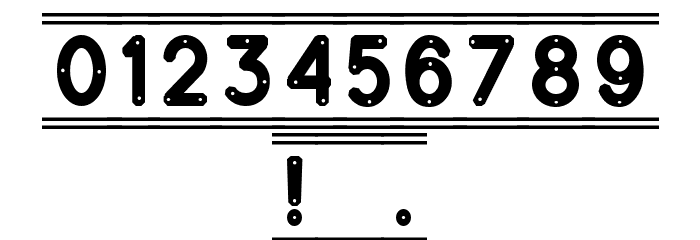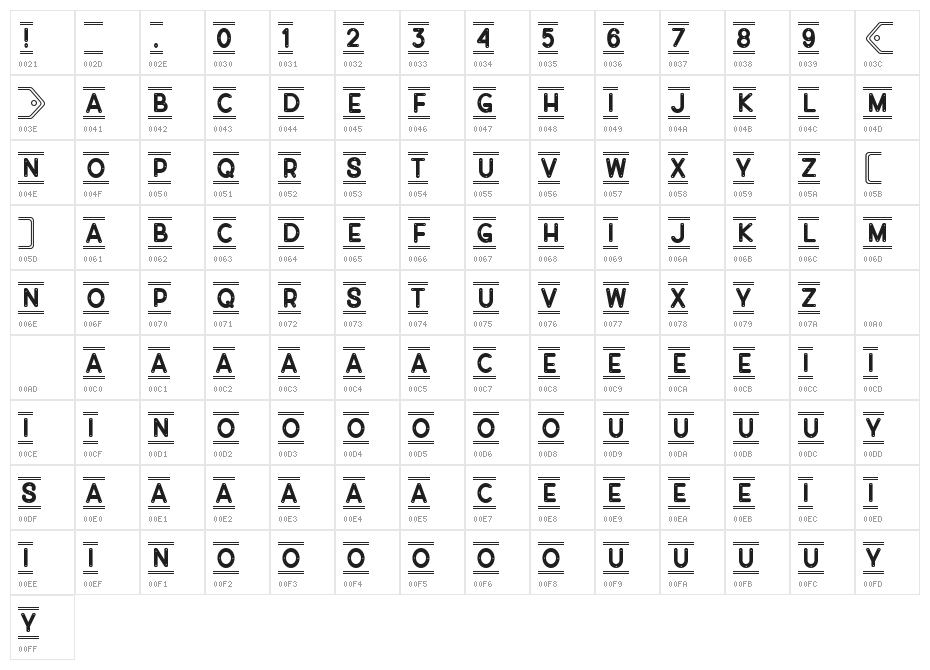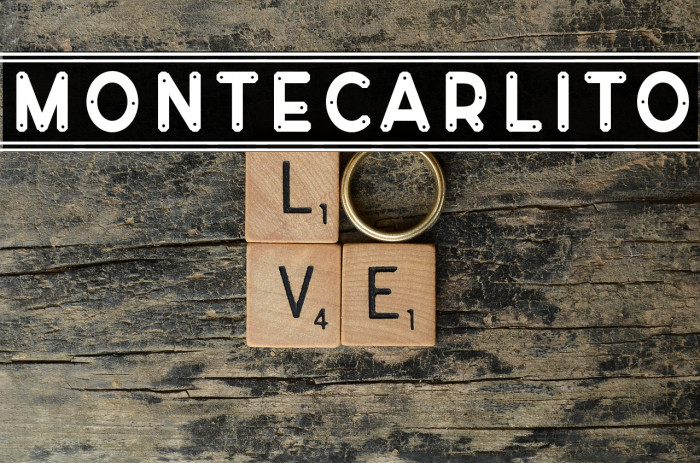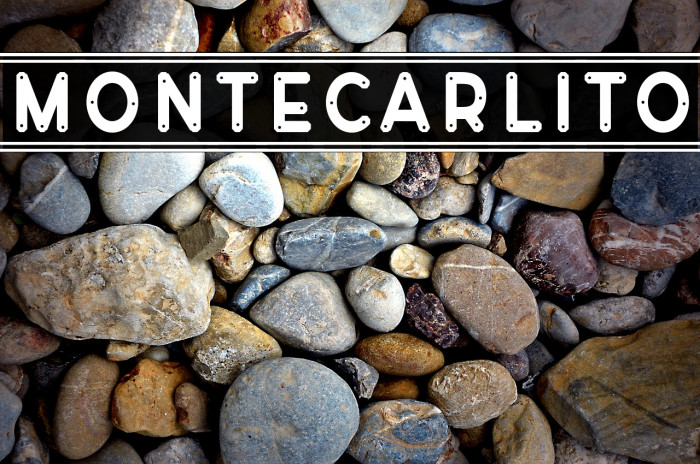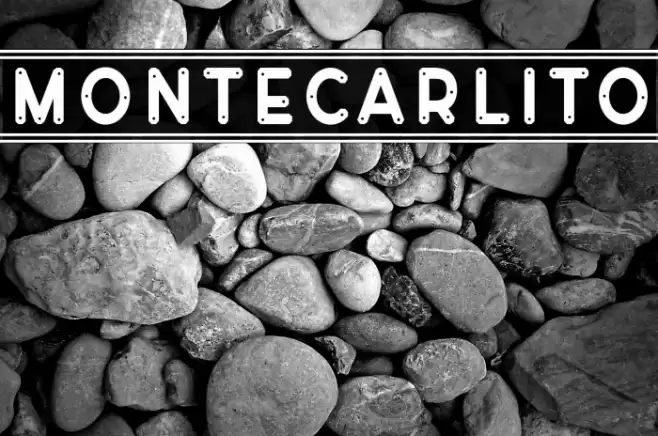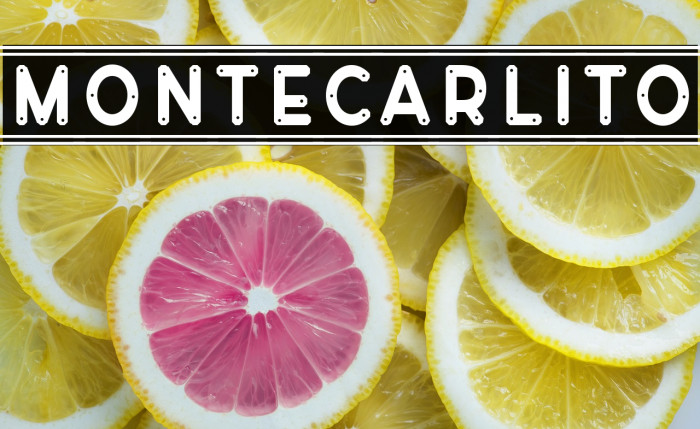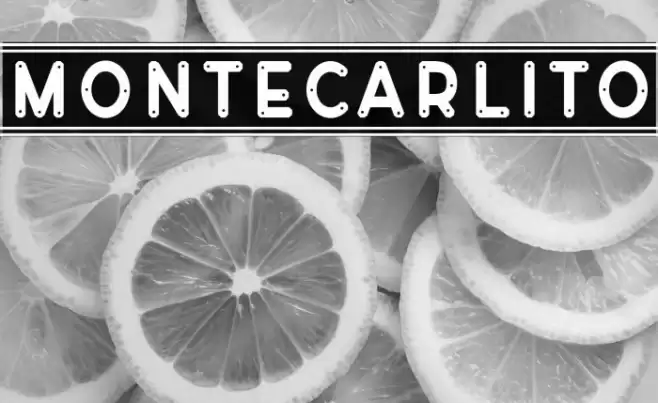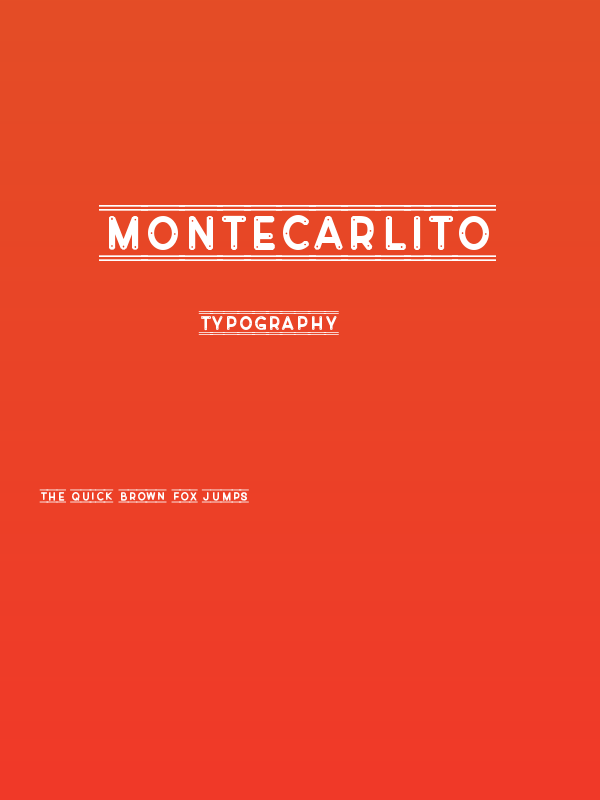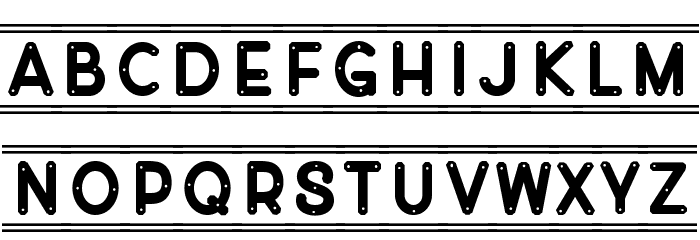
Montecarlito Font
Montecarlito Description
This font features a bold and playful design with a distinctive dotted pattern within each character, giving it a unique and eye-catching appearance. The uppercase letters are uniform in height and width, creating a sense of balance and harmony. The numbers and special characters maintain the same playful style, ensuring consistency across all elements. The font's boldness and decorative elements make it ideal for projects that require a strong visual impact. Its geometric shapes and clean lines contribute to a modern yet whimsical aesthetic, suitable for various creative applications.
| Overall Style | Modern, Whimsical |
| Proposed Projects | Ideal for children's books, playful branding, posters, and creative digital content. |